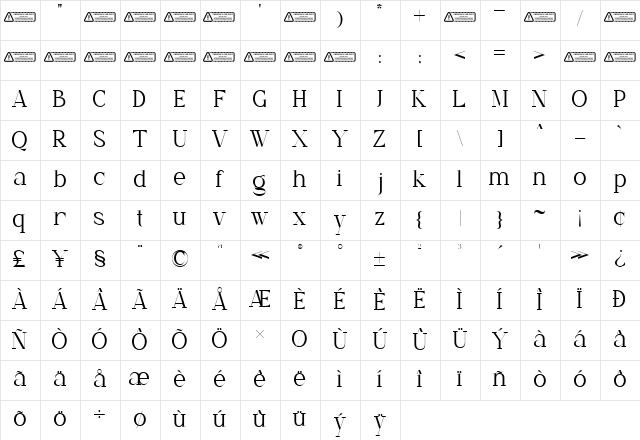
Roughly Begather Demo Regular
Foundry: Sohel Studio
Designer: Akhmad Husein Rifa'i
Design Context for Roughly Begather Demo
Roughly Begather Demo embraces imperfection - its rough, textured character adds raw authenticity to designs that want to feel lived-in and unconventional.
Pro Tip: Use Roughly Begather Demo at larger sizes where the texture and irregularity of each letterform can be clearly seen - it loses its character at small sizes.